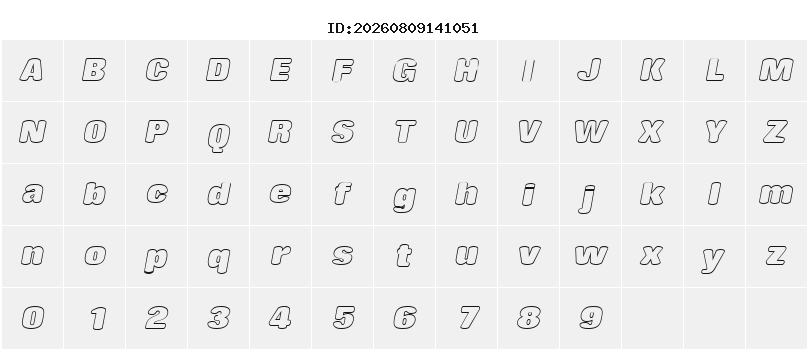
PatriciaBeckerOutline Preview
• Font Name: PatriciaBeckerOutline
• Full Font Name: PatriciaBeckerOutline Italic
• PostScript Name: PatriciaBeckerOutline-Italic
About PatriciaBeckerOutline.ttf
PatriciaBeckerOutline.ttf is a modern, elegant sans-serif font designed for ultimate readability and visual harmony. Perfect for branding, headlines, web design, and print materials.